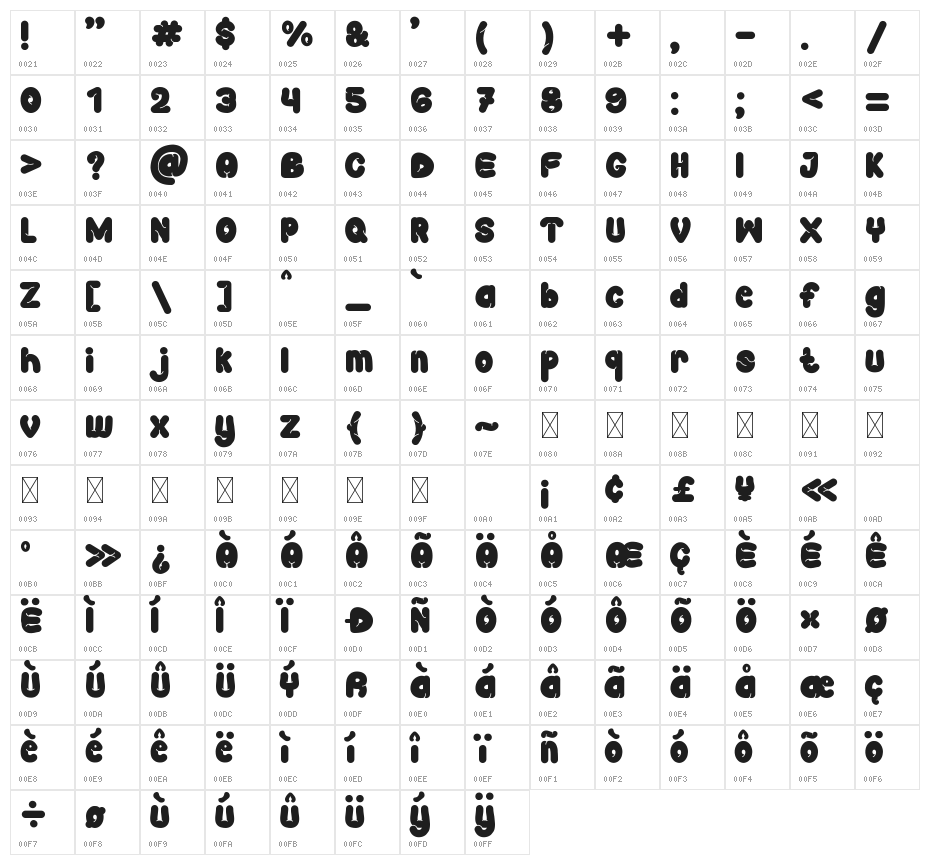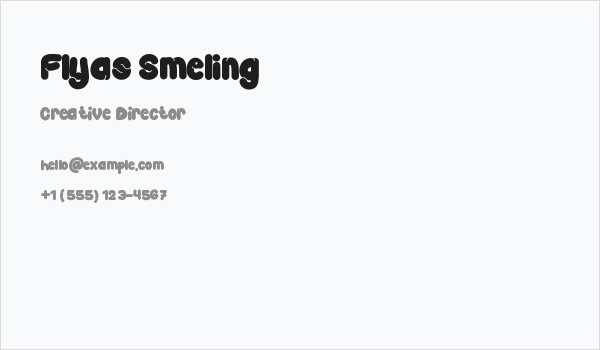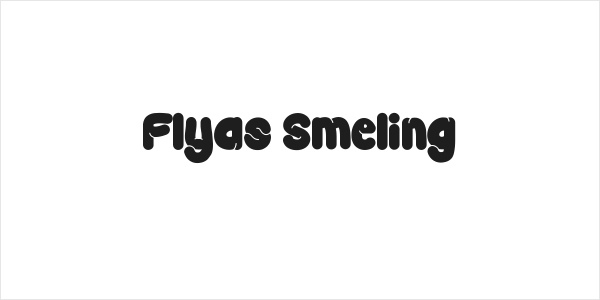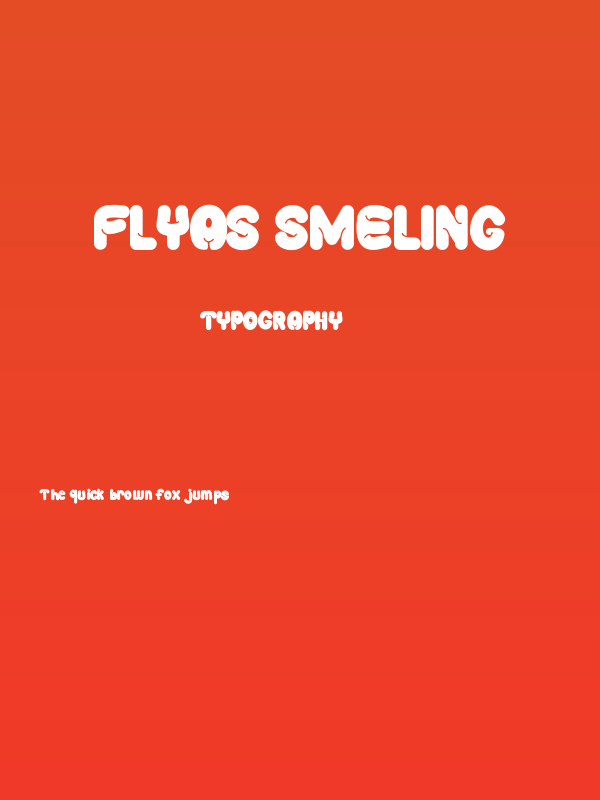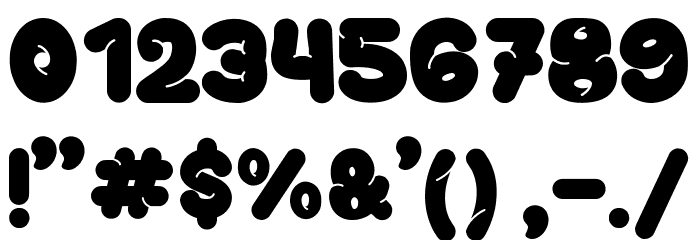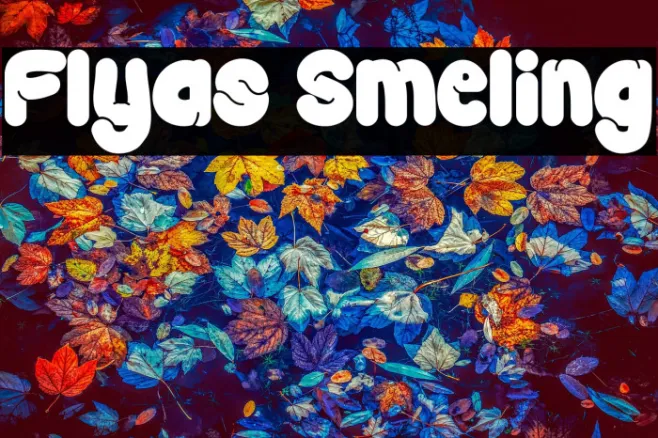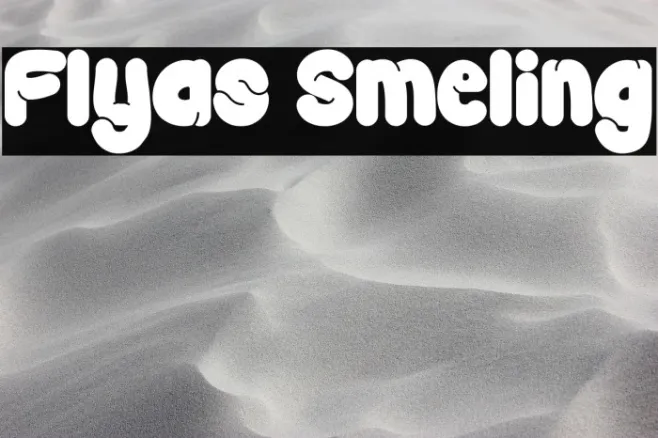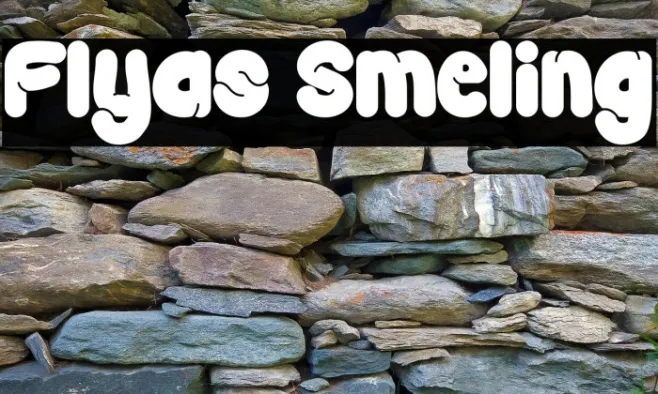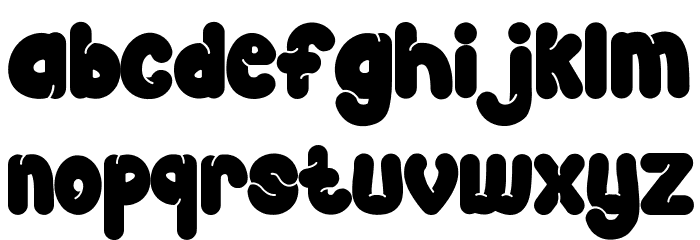
Flyas Smeling Font
Flyas Smeling Description
This playful and bold typeface features thick, rounded characters that exude a sense of fun and creativity. The letters are uniformly bold with a consistent stroke width, giving them a strong presence. The rounded edges and bubbly appearance make it ideal for projects that require a friendly and approachable feel. The numbers and special characters maintain the same playful style, ensuring consistency across all text elements. This font is perfect for designs that aim to capture attention and convey a sense of joy and whimsy.
| Overall Style | Playful |
| Proposed Projects | Ideal for children's books, playful branding, party invitations, and creative posters. |